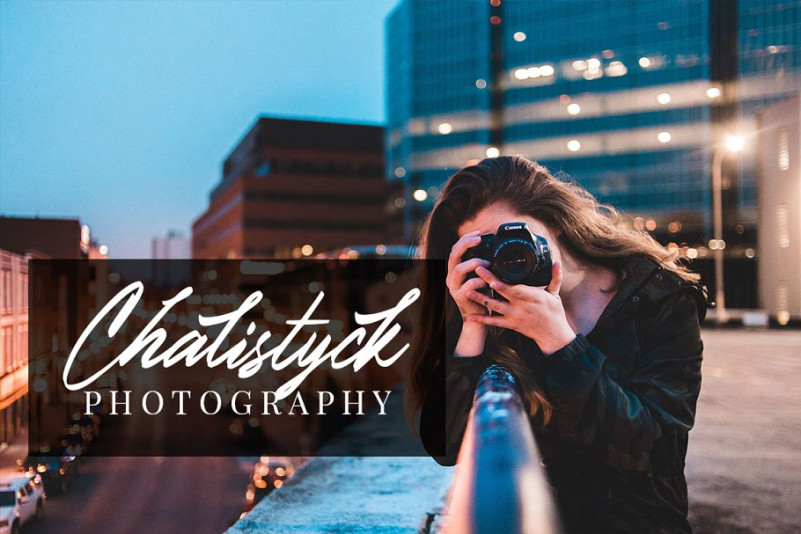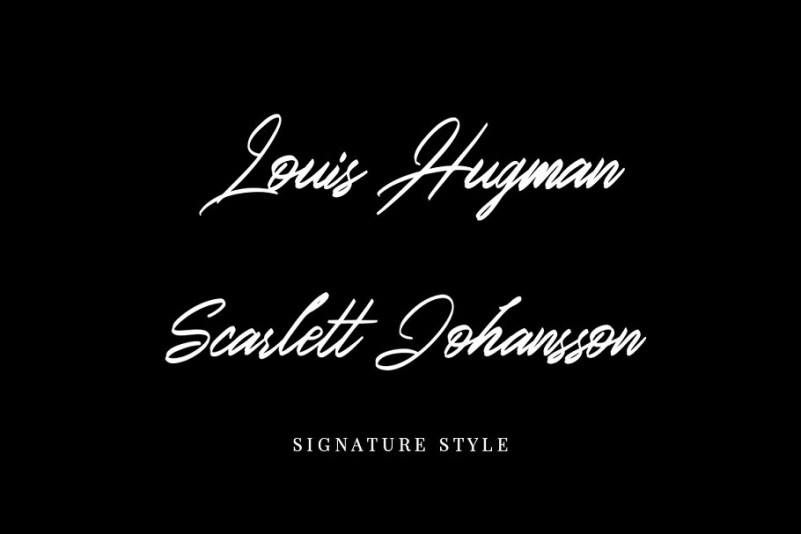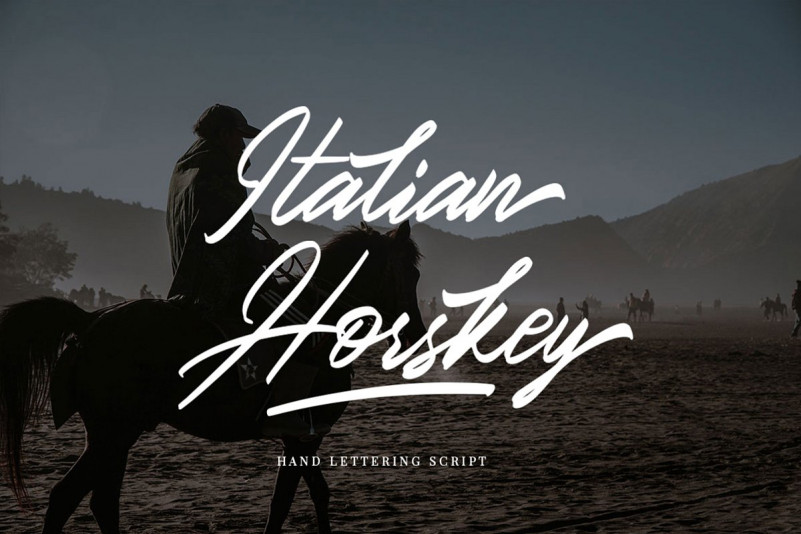
Italian Horskey Font
Italian Horskey Signature Handlettering Script is new fashionable handwriting font and super cool with sexy style. And also the Capital letters with contemporary and sophisticated accents. Italian Horskey Signature Handlettering Script offers beautiful typographic harmony for a diversity of design projects, including logos & branding, wedding designs, signature, social media posts, advertisements & product designs.